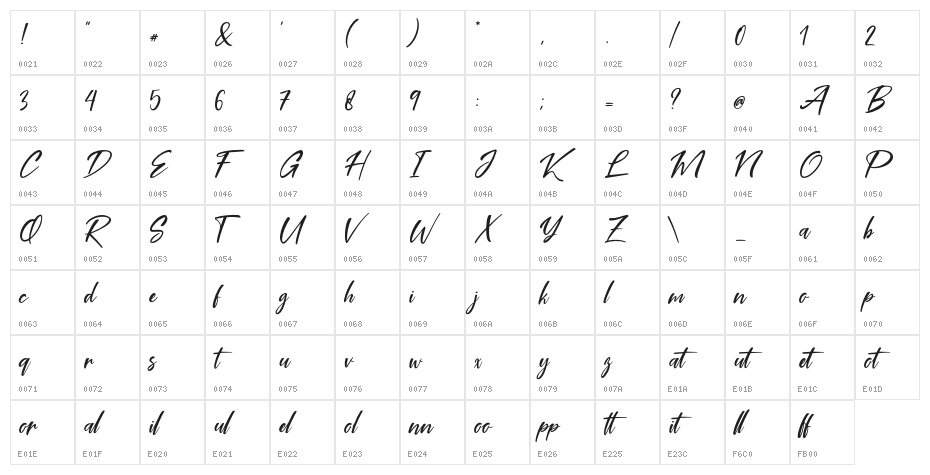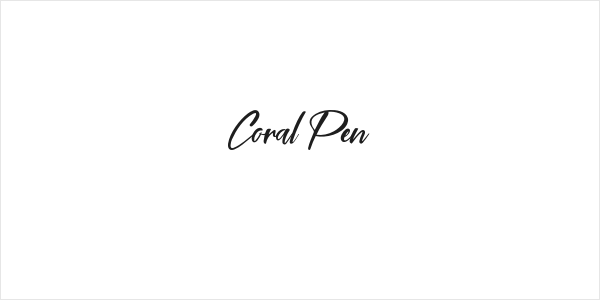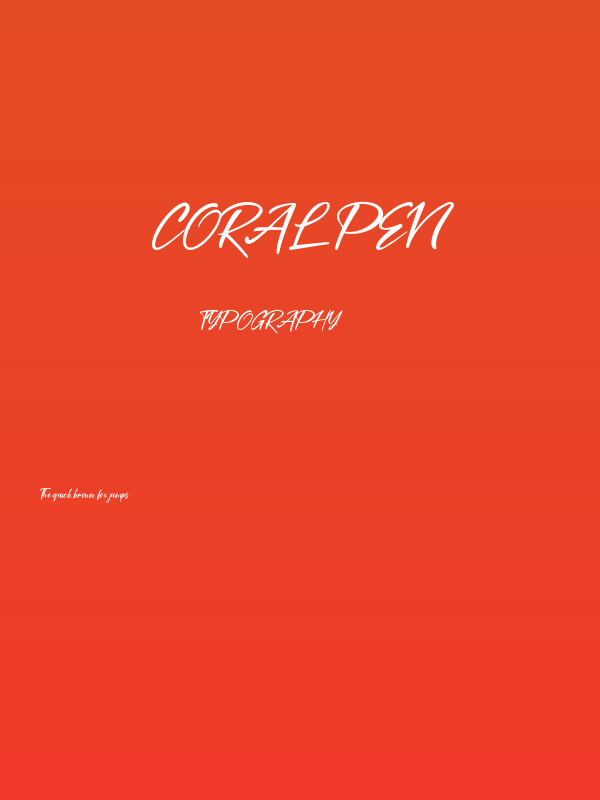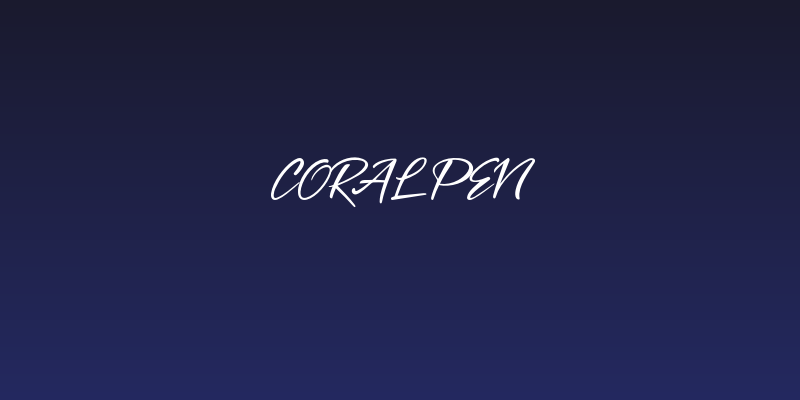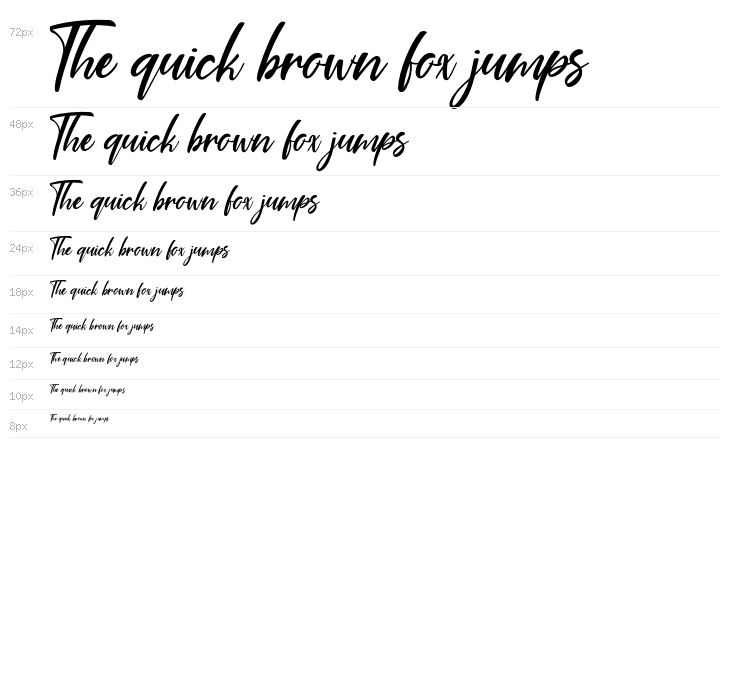
Coral Pen Font
Coral Pen Description
This font exudes a dynamic and elegant script style, characterized by its fluid and cursive strokes. The uppercase letters are bold and sweeping, with a slight slant that adds a sense of motion and grace. The lowercase letters maintain a consistent flow, with rounded forms and smooth connections between characters. The numerals are stylish and maintain the same cursive flair, making them blend seamlessly with the letters. Special characters are crafted with the same attention to detail, ensuring a cohesive look across all glyphs. This font is ideal for projects that require a touch of sophistication and personality, such as invitations, branding, and editorial design.
| Overall Style | Elegant, Sophisticated |
| Use Case | Headlines, Invitations, Branding |
| Proposed Projects | Ideal for wedding invitations, branding, editorial design, and elegant signage. |